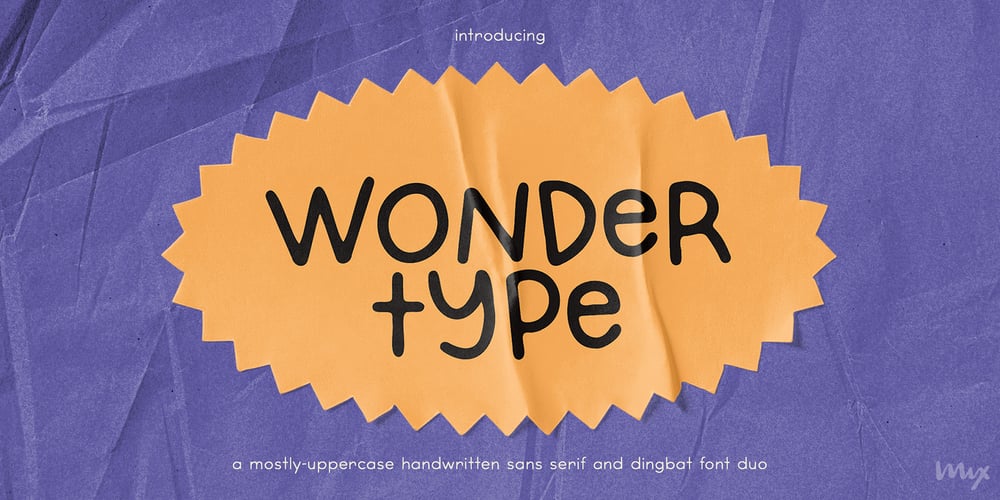
Wondertype
Wondertype font
Wondertype Font Family was designed by Mikko Sumulong and published by Mix Fonts. Wondertype contains 2 styles and family package options. Inject some serious whimsy and charm into your designs with WONDERTYPE, a playfully cute display font duo that’s bound to bring a smile to your face. Whether you’re crafting social media posts, creating posters, or designing websites, WONDERTYPE adds a playful touch to any project. Plus, with an accompanying whimsical dingbat set filled with doodles galore, WONDERTYPE ensures your creations stand out from the crowd. Don’t miss out on this fun and versatile font duo – make WONDERTYPE a part of your font collection today!Wondertype (Regular) comes with the following glyphs: ABCDEFGHIJKLMNOPQRSTUVWXYZ abcdefghijklmnopqrstuvwxyz 0123456789 !@#$%^&*( )`~♥❤✿•· .,:;'”|/?{}[]“”‘’-–—_÷×+−±≈=≠≥≤ …‚„©®™‹›«»°¹²³ªº¡¿₱¢€£¥½¼¾¶§№† ÁÀÂÃÄȦÅĂĀĄÆĆĈČĊÇÐĐĎÉÈÊĚËĖĒĘḞǴĜǦĠḠĤȞḦḢ IÍÌÎÏĪĮĴḰǨĹĽŁḾṀŃŇÑÓÒÔÕÖŌŐØŒṔṖŔŘṘŚŜŠŞȘ ŤṪŢȚÚÙÛŨÜŮŬŪŰŲẂẀŴẄẆÝŶŸŹẐŽŻƵÞẞ áàâãäȧåăāąæćĉčċçðđďéèêěëėēęḟǵĝǧġḡĥȟḧḣ ıíìîïīįĵḱǩĺľłḿṁńňñóòôõöōőøœṕṗŕřṙśŝšşș ťṫţțúùûũüůŭūűųẃẁŵẅẇýŷÿźẑžżƶþß Wondertype Dings (Dingbat) comes with the following glyphs: ABCDEFGHIJKLMNOPQRSTUVWXYZ abcdefghijklmnopqrstuvwxyz 0123456789